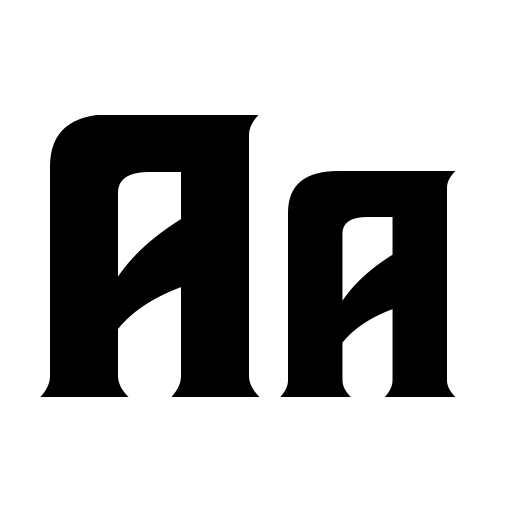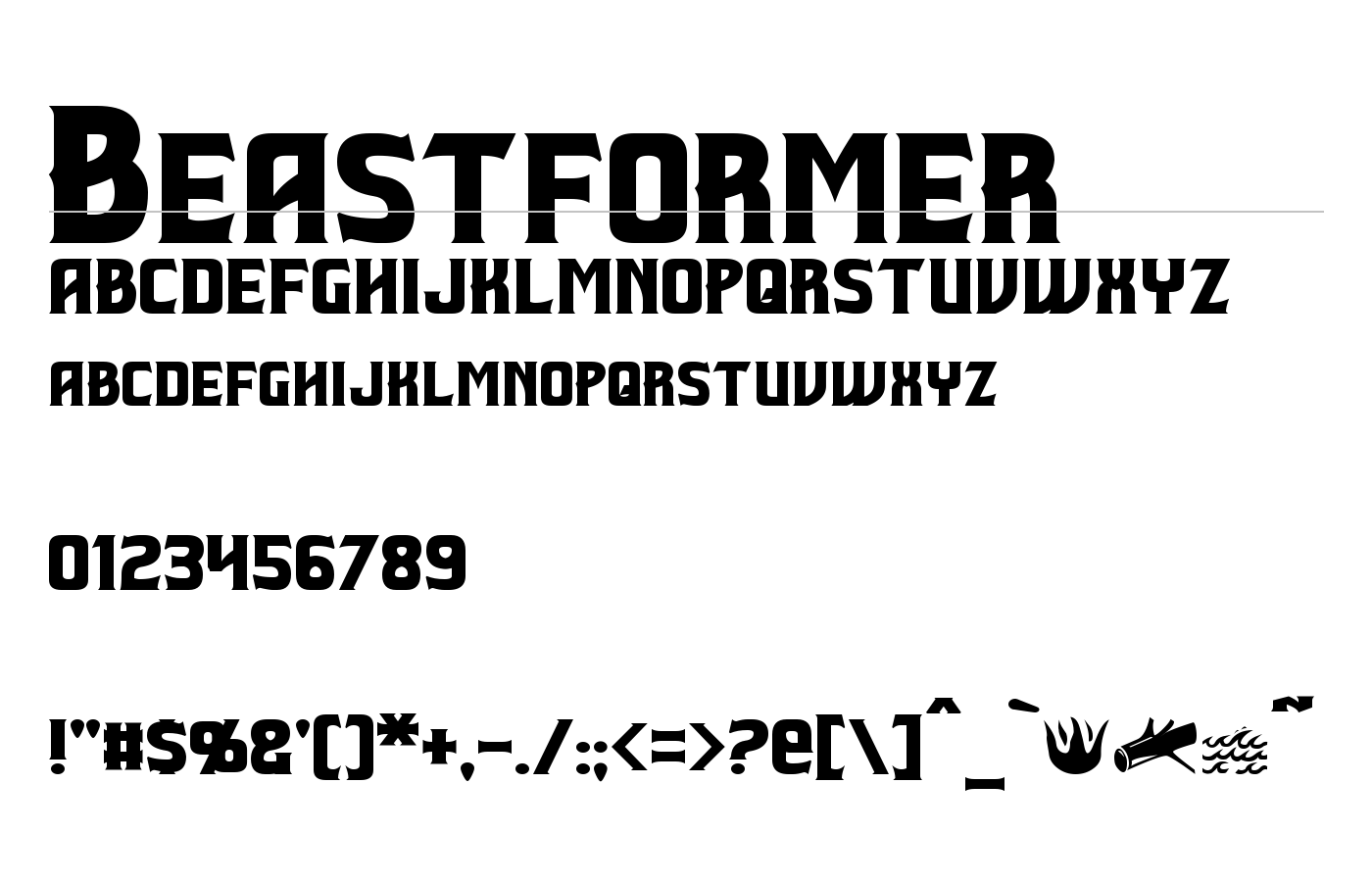
Beastformer is a bold, condensed serif font with strong contrasts and sharp, angular details that give it a powerful, fierce appearance. Its unique letterforms and stylized serifs evoke a sense of strength and intensity, making it ideal for striking headlines, logos, and designs needing a dramatic, dynamic impact. This font is perfect for brands or projects that want to communicate energy, adventure, or a rugged, robust personality.
Beastformer Font
About Beastformer Font
| Font family | Beastformer Font |
| Designer | Neale Davidson |